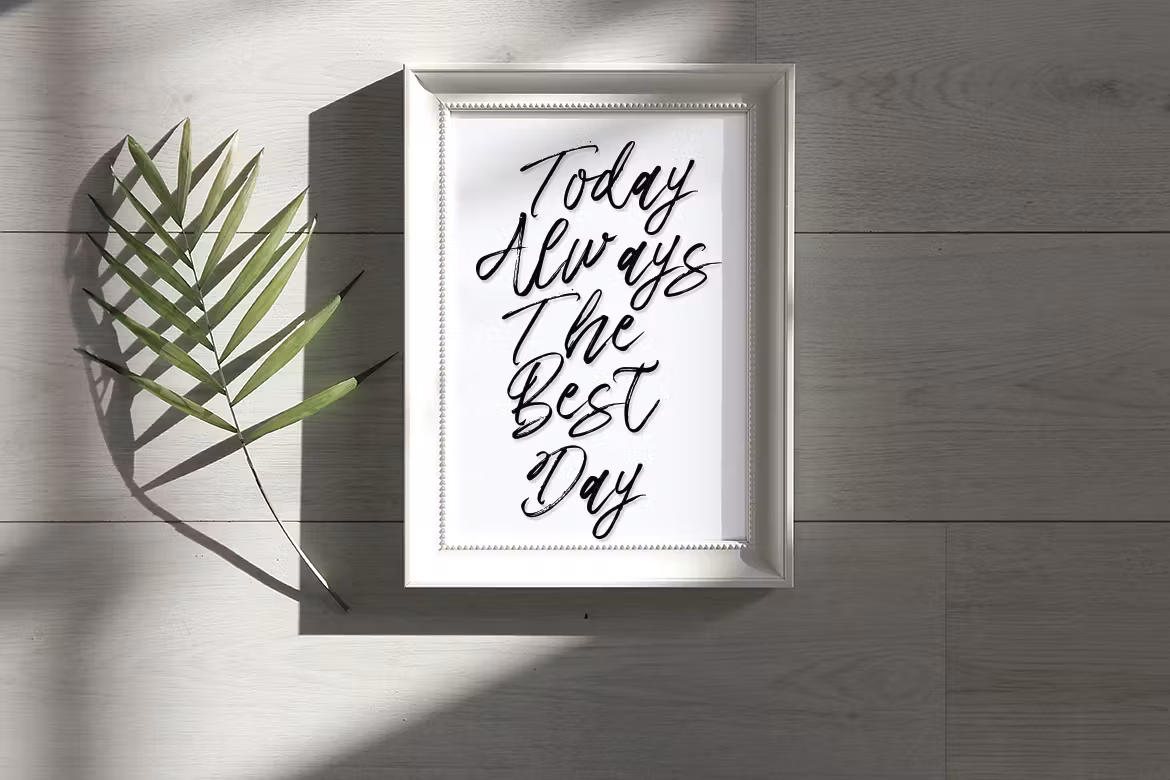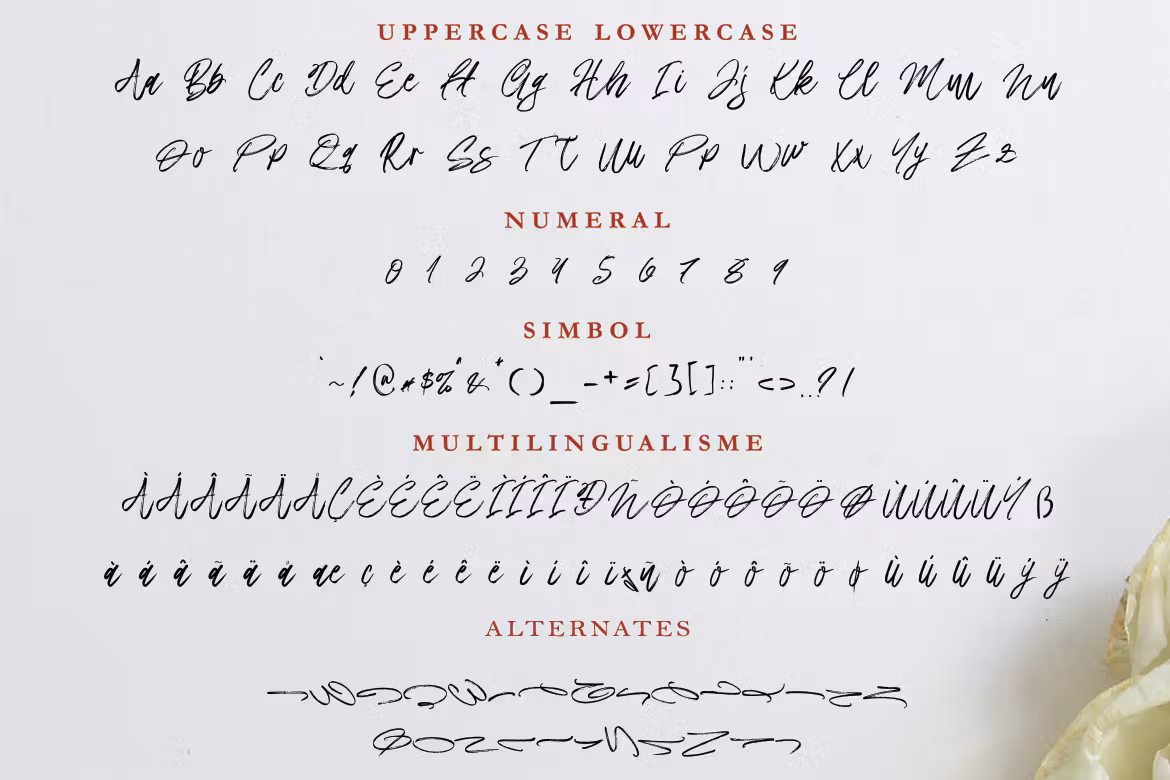
Magest Font
it is important that the Font Magest Brush comes along with masculine themes. It suits in some designs for instance the logotype, brand, packaging, quotes, music poster, cover book and several more custom design. The features includes capital letters, small letters, numbers, basic & special characters, more than one language.
Magest Brush Font